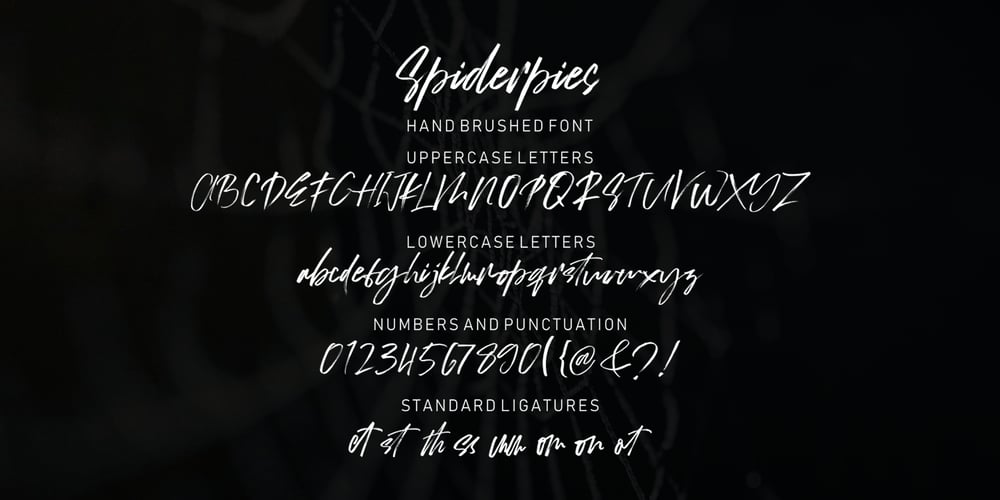
Spiderpies Font Family was designed by Muhammad Fajar and published by Lucky Type. Spiderpies contains 1 styles and family package options. Introducing Spiderpies, a brush script that is modern, free-style, free-flowing, friendly and organic.Can be used for various purposes – Branding, Happy New Year, Logos, Greeting Cards, Wedding Stationery and Quotes. Files included : Spiderpies OTF Spiderpies features : Basic Latin A-Z and a-z Numbers Symbols To enable the OpenType Stylistic alternates, you need a program that supports OpenType features such as Adobe Illustrator CS, Adobe Indesign & CorelDraw X6-X7, Microsoft Word 2010 or later versions And this Font has given PUA unicode. There are additional ways to access alternates/swashes, using Character Map (Windows), Nexus Font (Windows), Font Book (Mac) or a software program such as PopChar (for Windows and Mac).